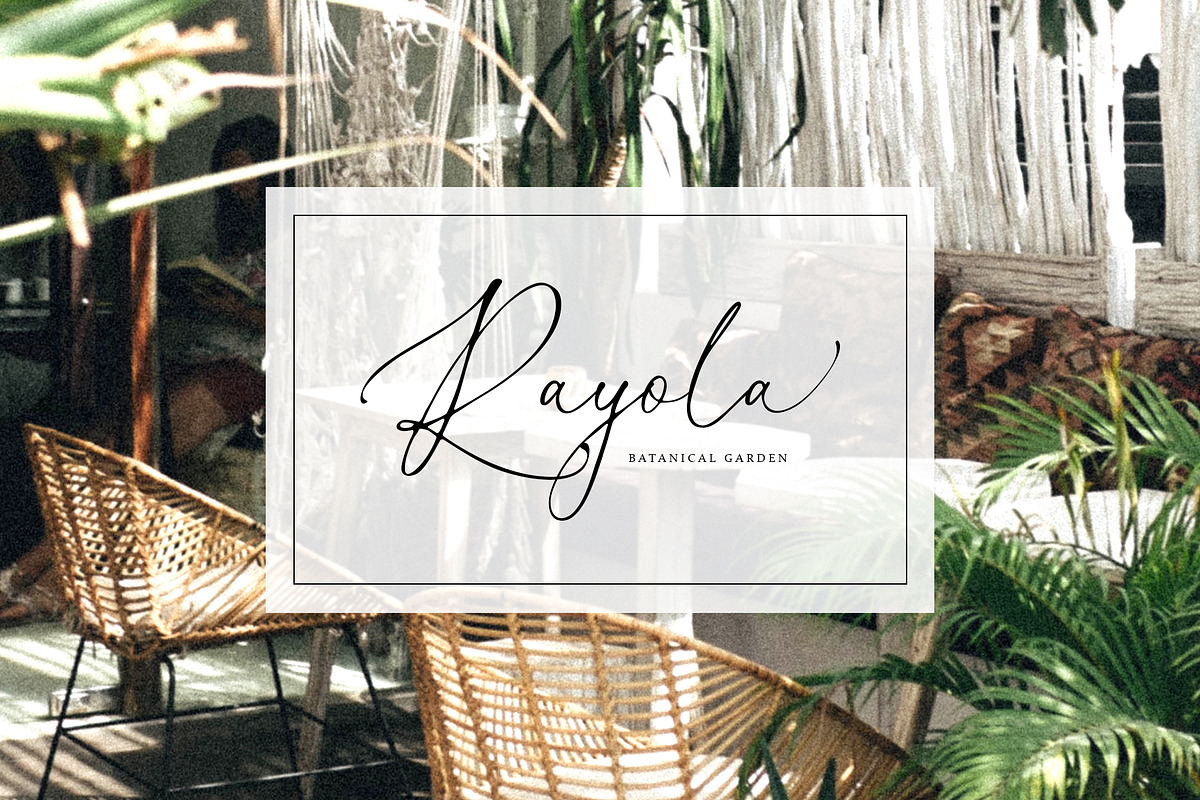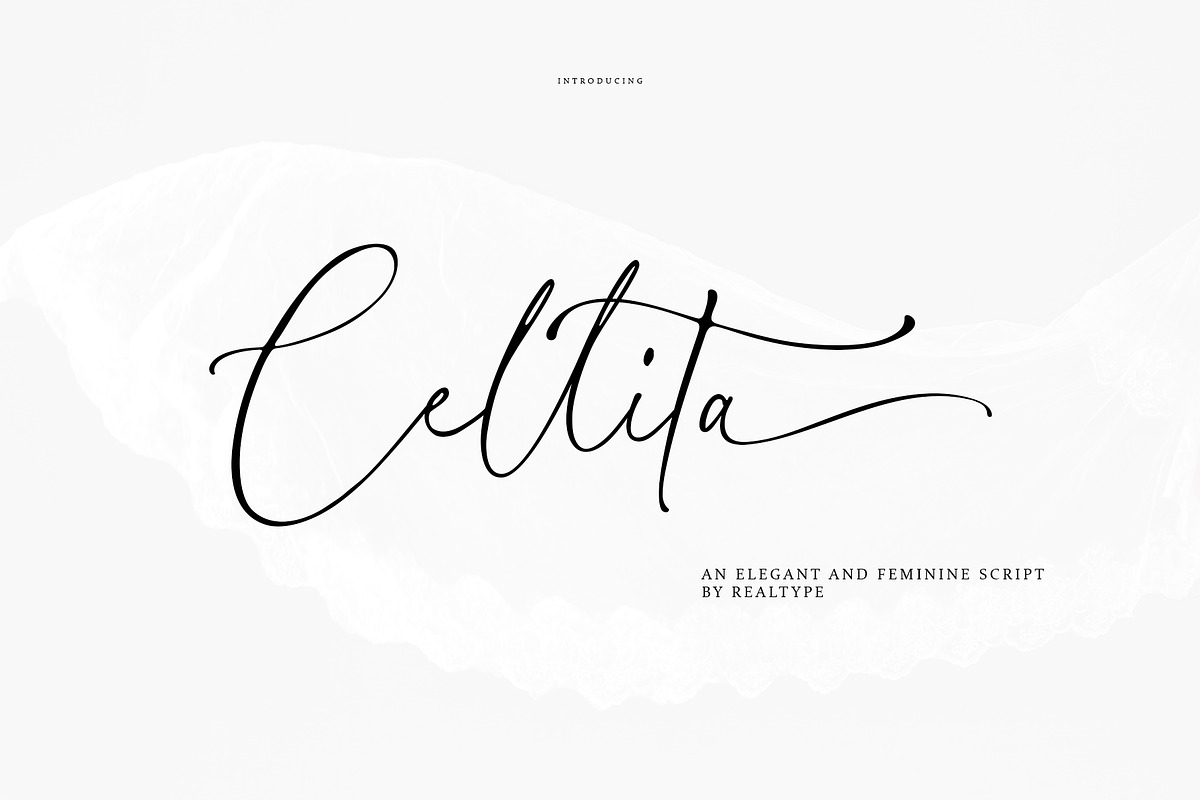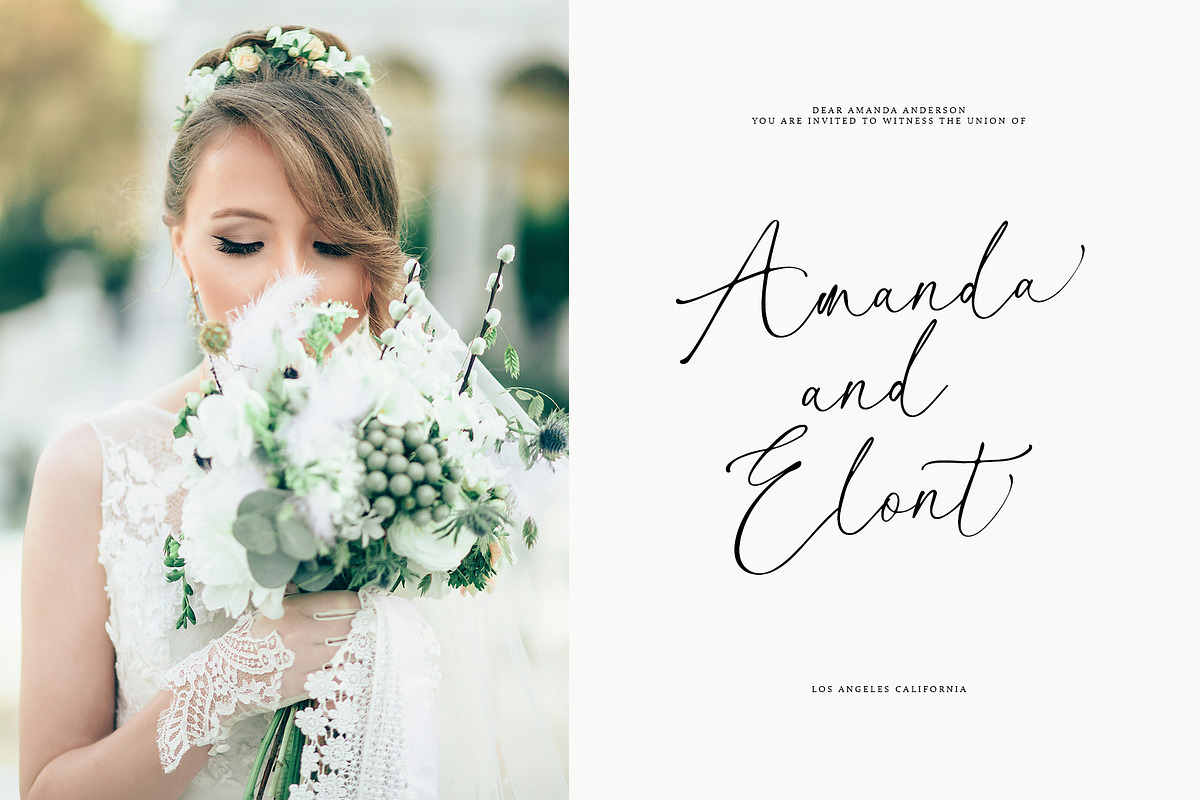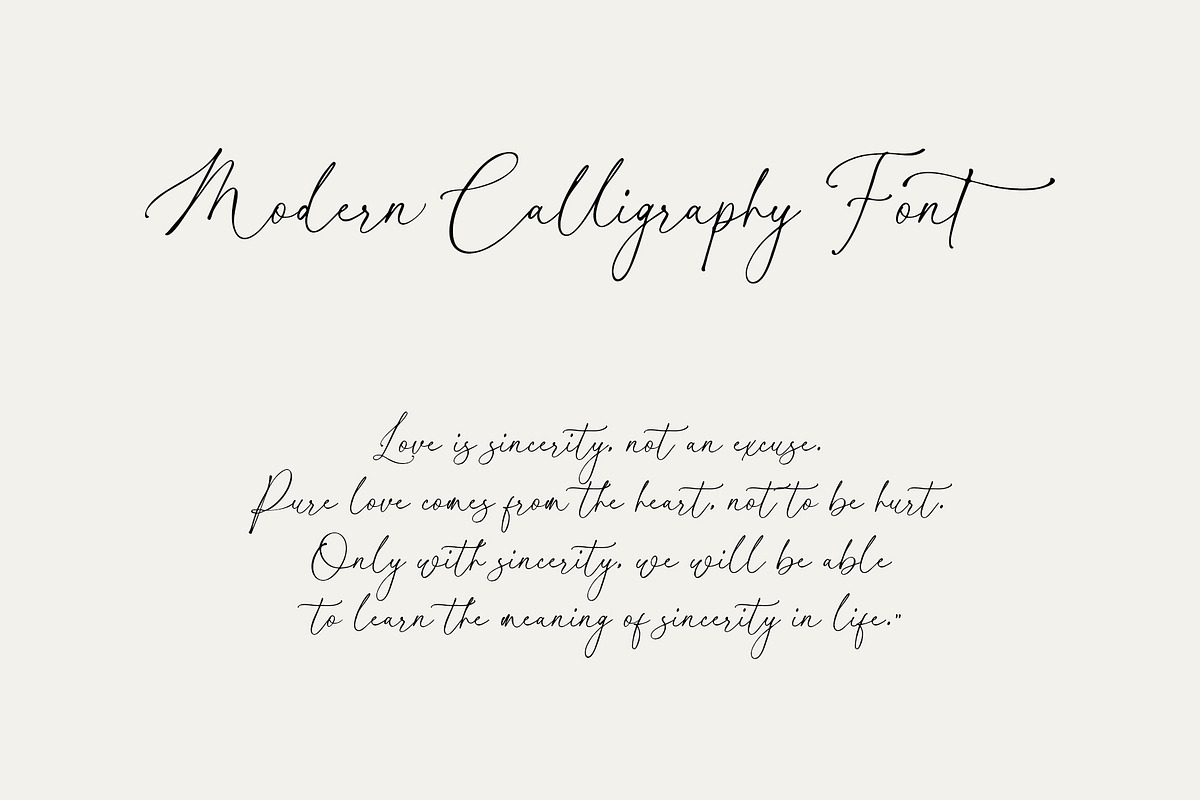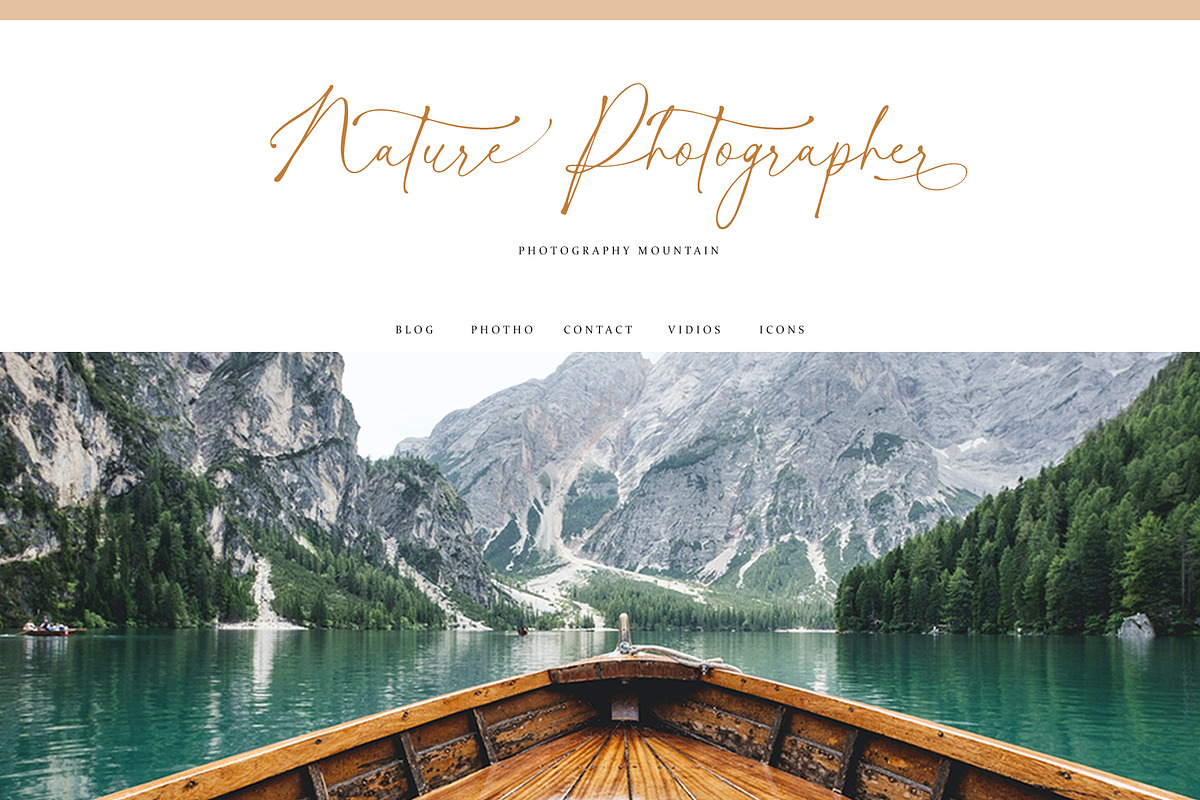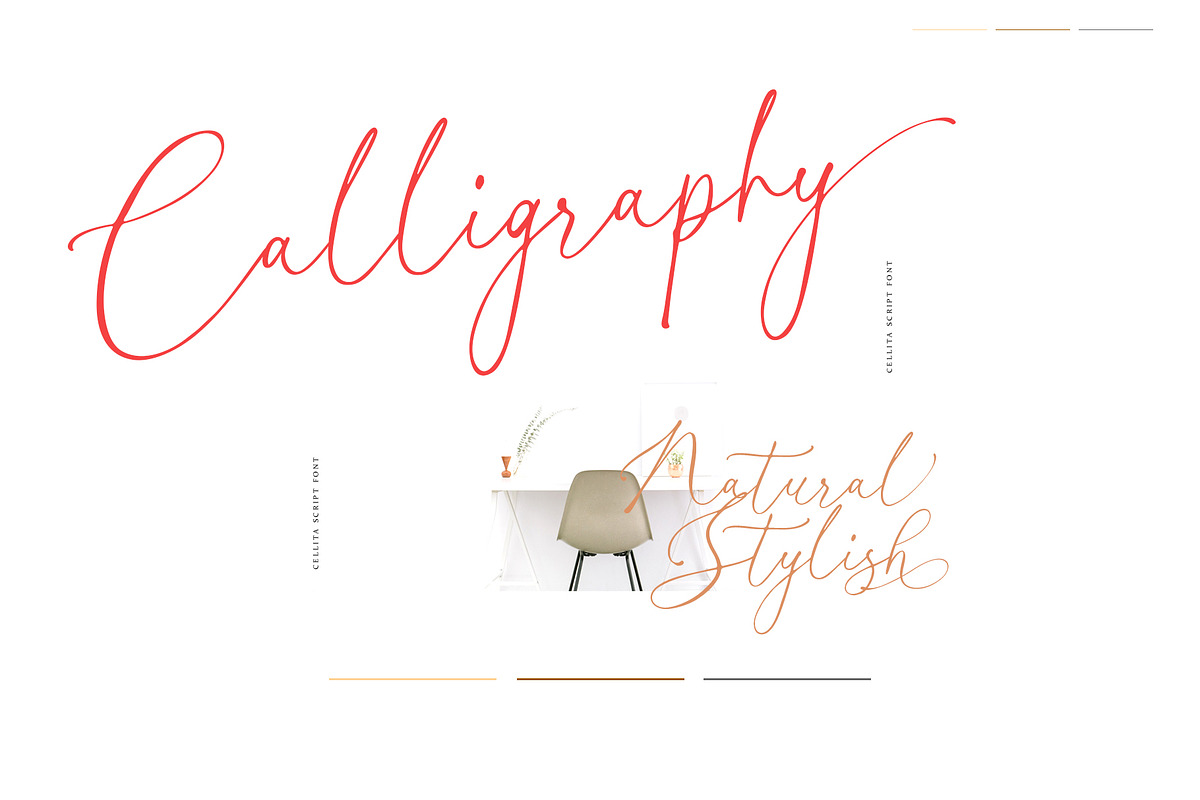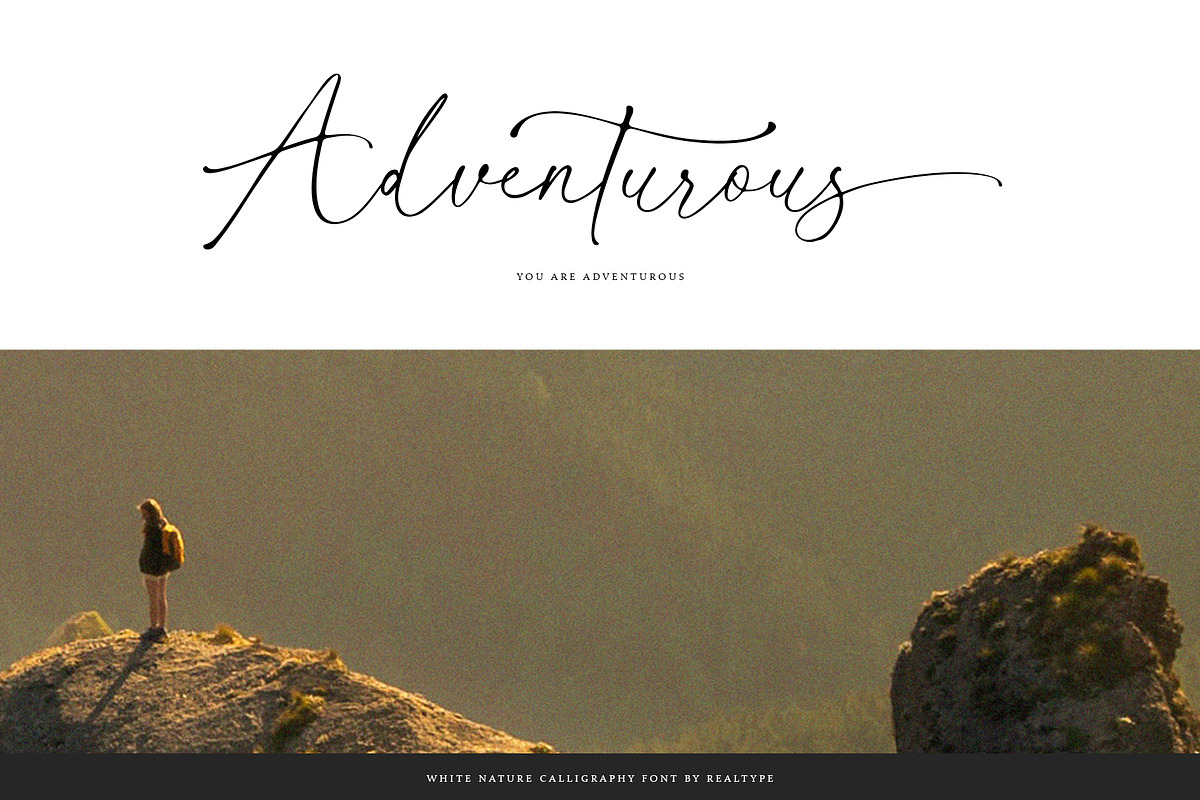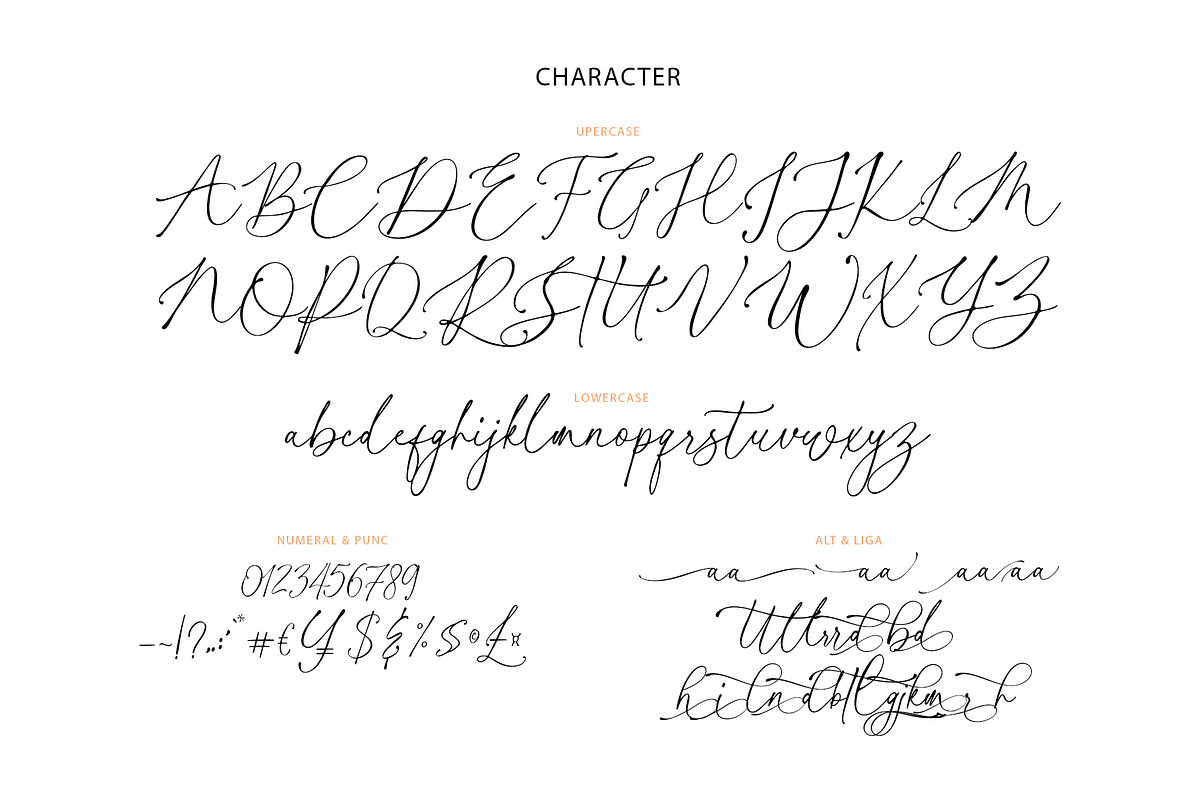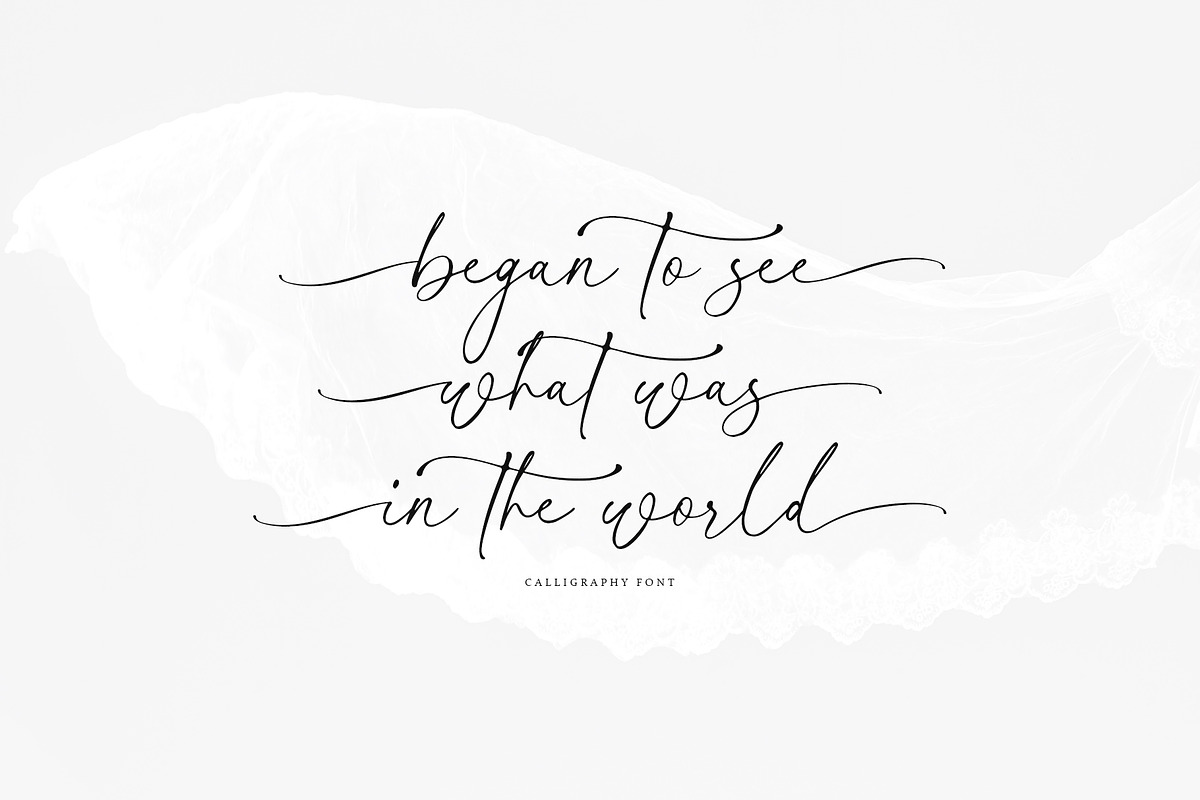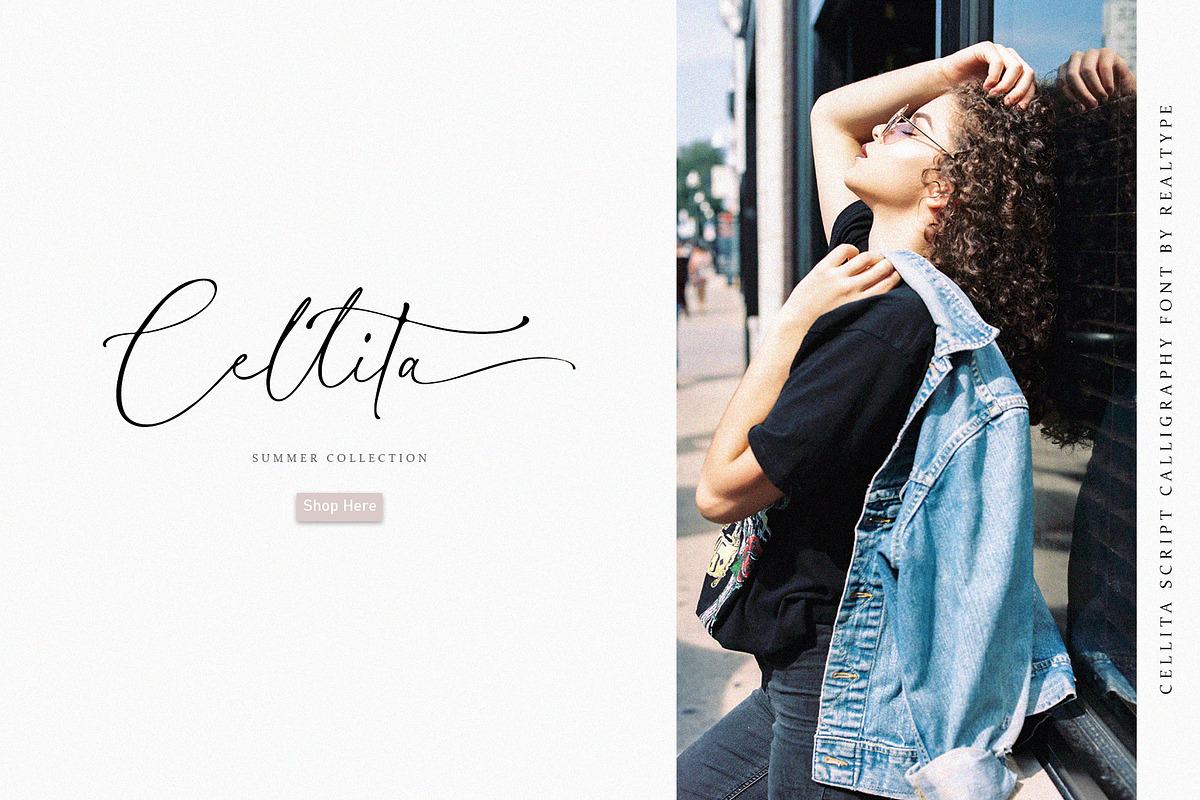
Cellita Script
Cellita Script Fonts consist of sophisticated, elegant, classy and modern handwriting. With a little dirty curvature and made from the typography of new trends, This font will give you a design that looks fresh and modern.
Cellita Script, with a soft style and has elegant nuances, classy and natural. Perfect to get a more charismatic impression or a unique touch to your projects and branding, greeting cards, wedding, banner, name card, lettering, fonts pairing, etc.